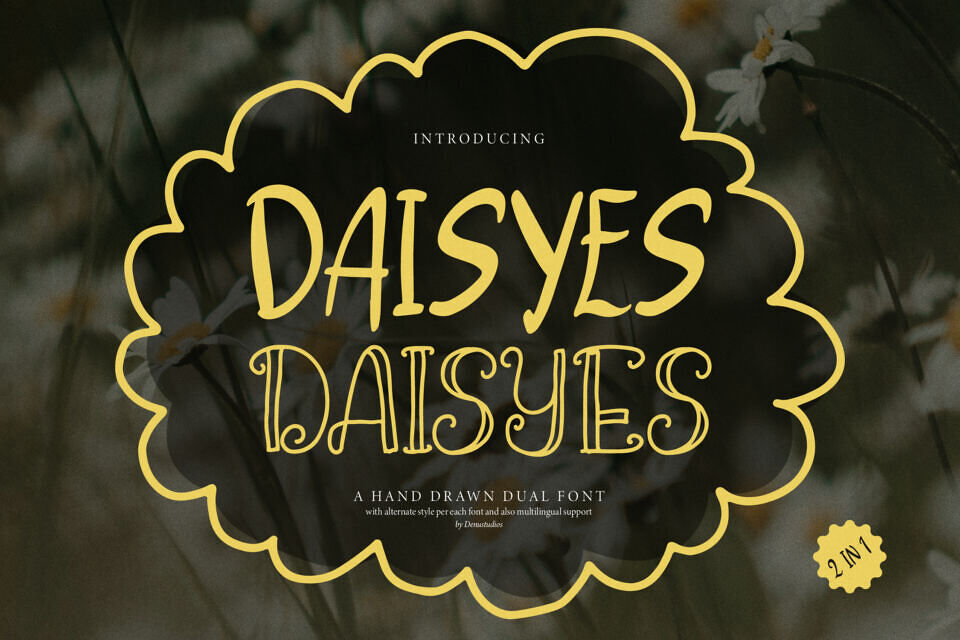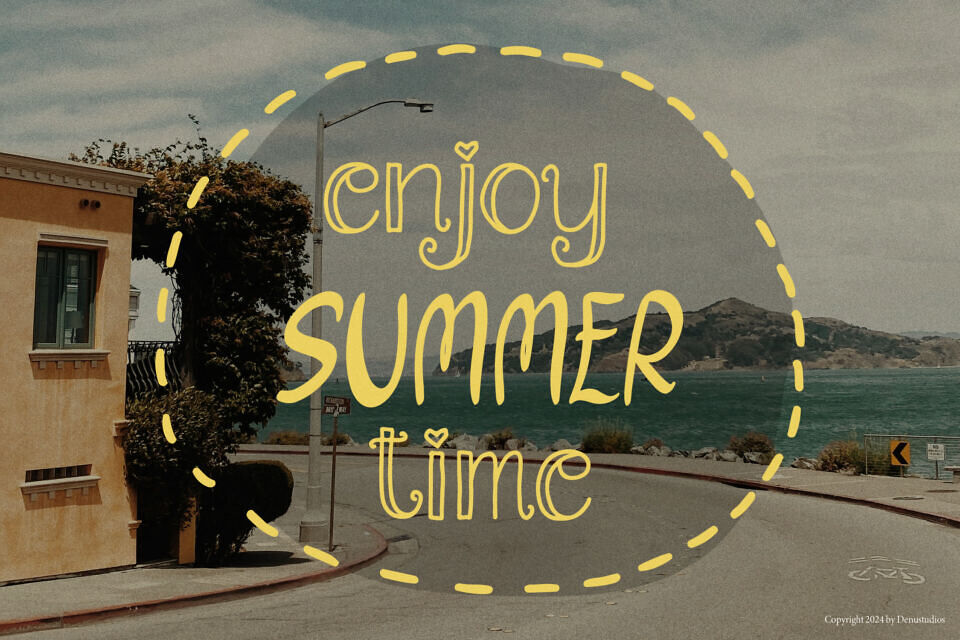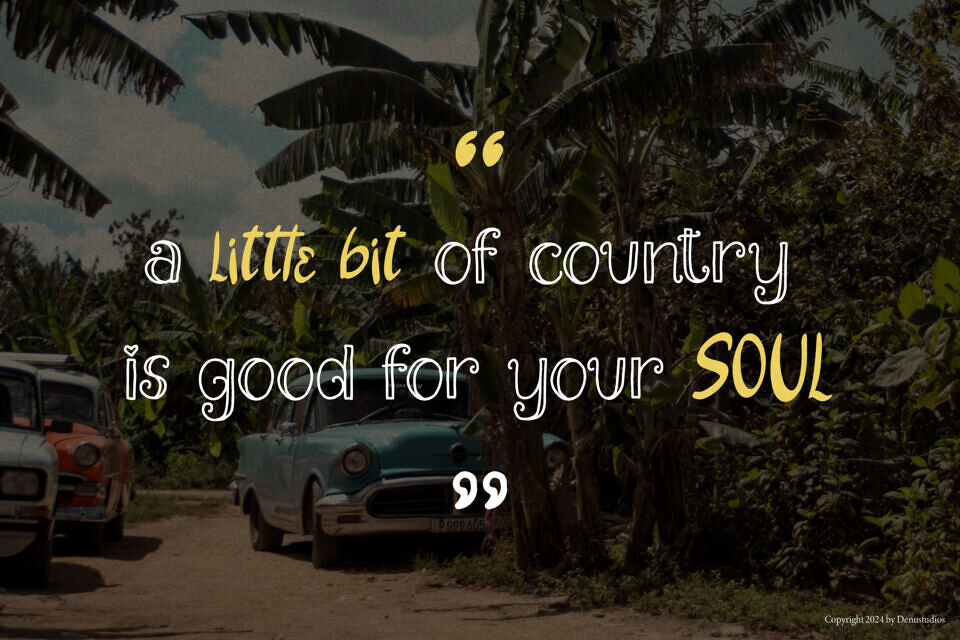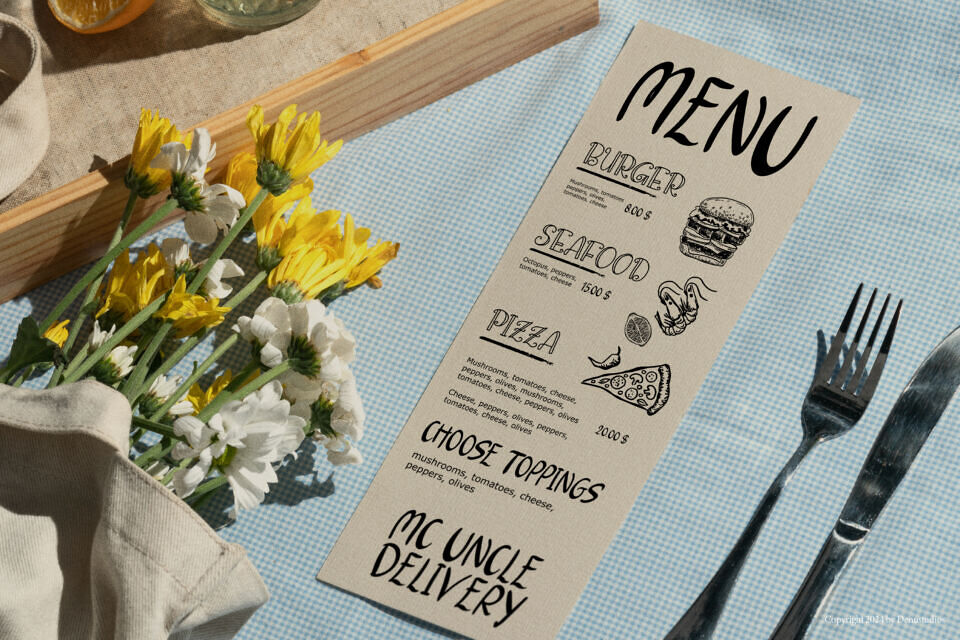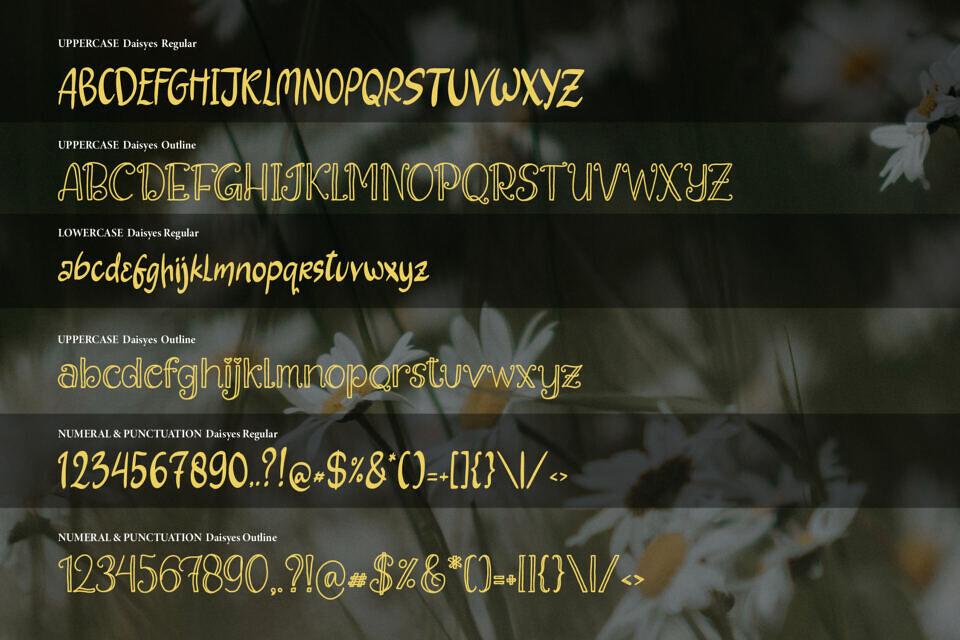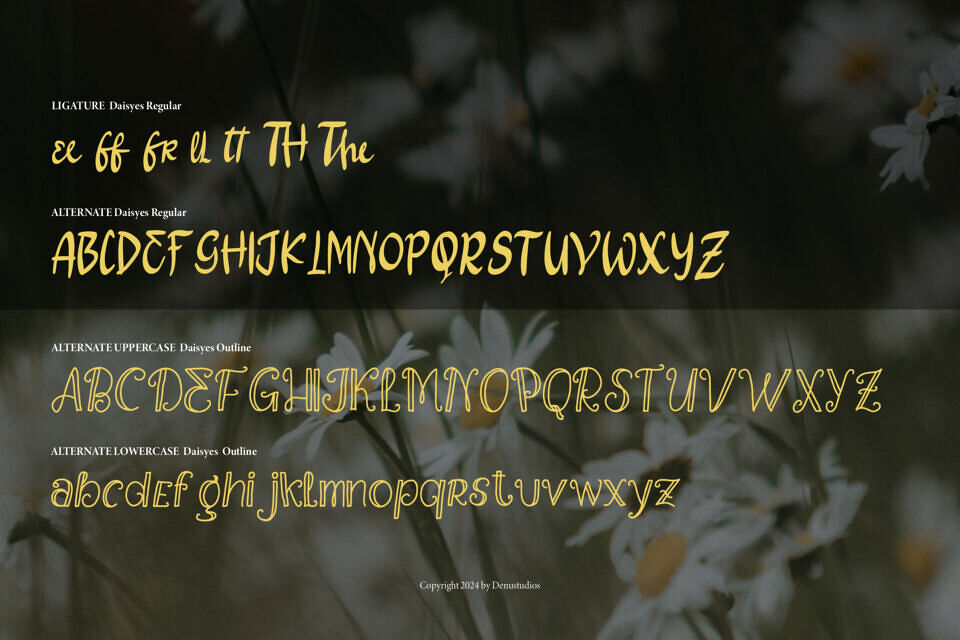
Daisyes Font
Daisyes is a charming, hand-drawn font with two styles, Regular and Outline. It combines playful script letters with neat, simple print letters. Perfect for creating fun, creative designs like cards, logos, or posters!